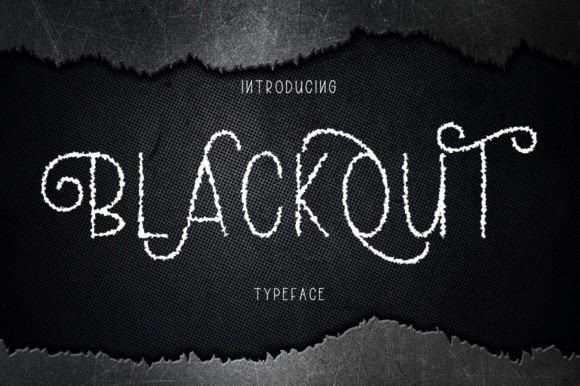
Unleash the captivating power of Blackout Font, the ultimate script font family that exudes vintage charm and bold elegance. Crafted by the talented rotterlabstudio, Blackout is a handwritten masterpiece that breathes life into your creative projects.
With its distinctive style and bold strokes, Blackout emerges as the perfect font for branding projects, labeling, apparel, movie screens, posters, movie titles, album covers, logos, and more. Let your imagination run wild as you witness the transformation of your designs into timeless works of art.
Blackout is carefully designed with a focus on Latin writing, ensuring that your messages and words resonate with clarity and impact. Its versatility extends to various design applications, making it the go-to font for creating impactful visuals that leave a lasting impression.
Immerse yourself in the world of Blackout and discover a font family that ignites creativity and elevates your designs. Whether you're a seasoned designer or just starting your artistic journey, Blackout is the key to unlocking your full creative potential.
So embrace the vintage charm, the boldness, and the elegance of Blackout Font today. Your creative projects deserve nothing less than the best, and Blackout delivers just that.
Embrace the Blackout experience and let your designs shine brighter than ever before!